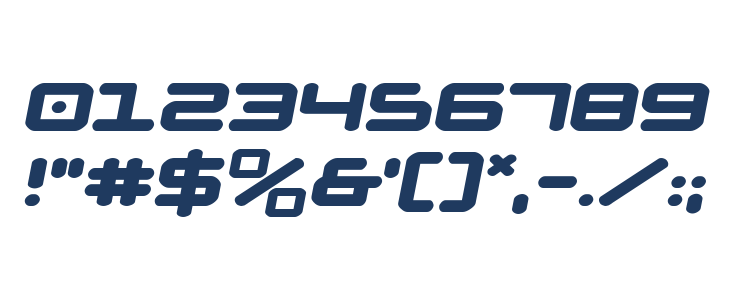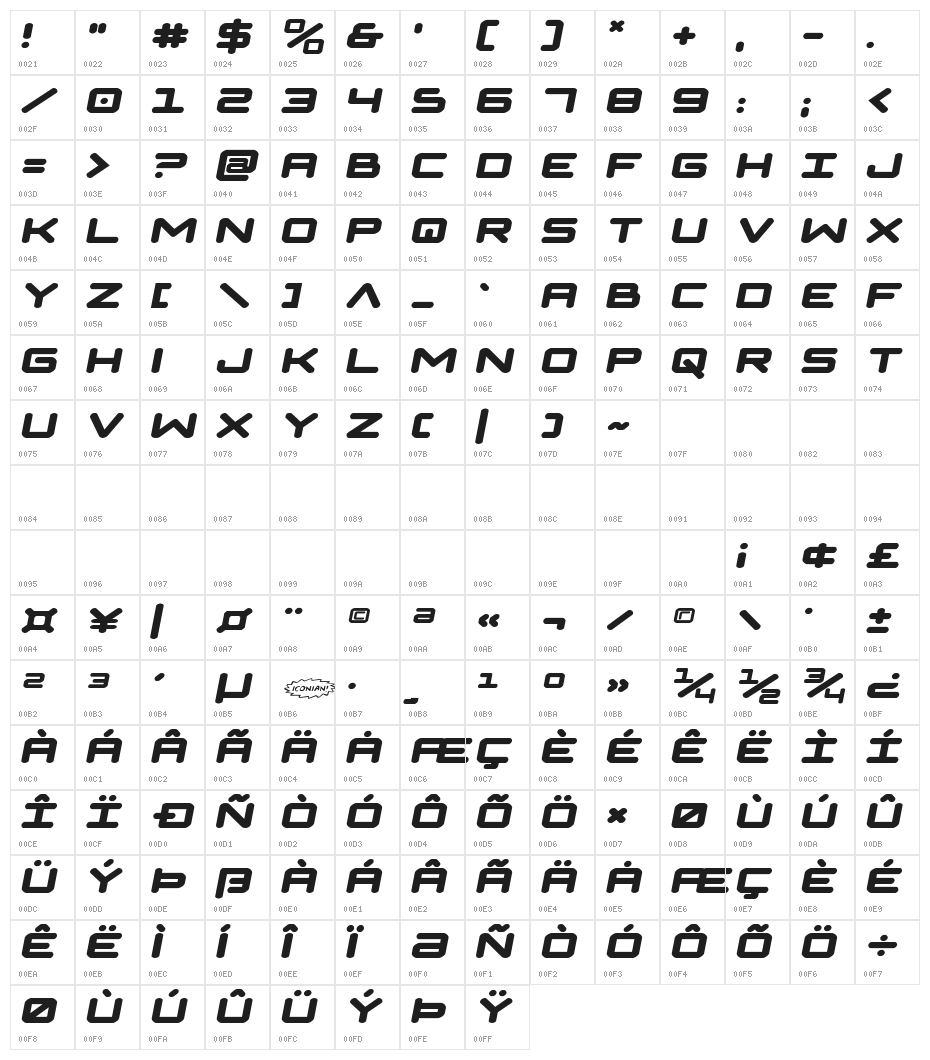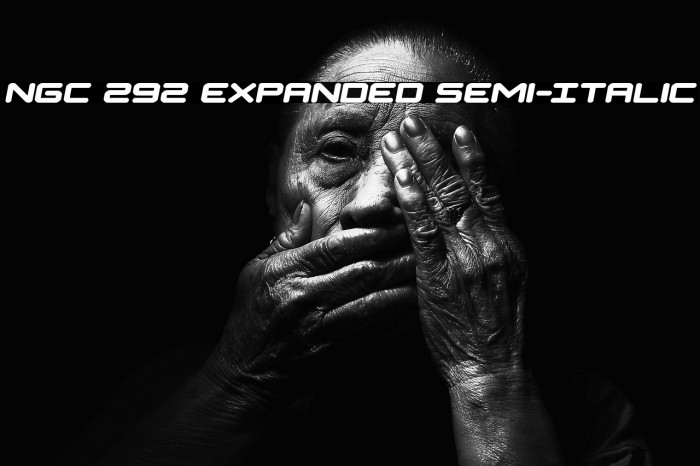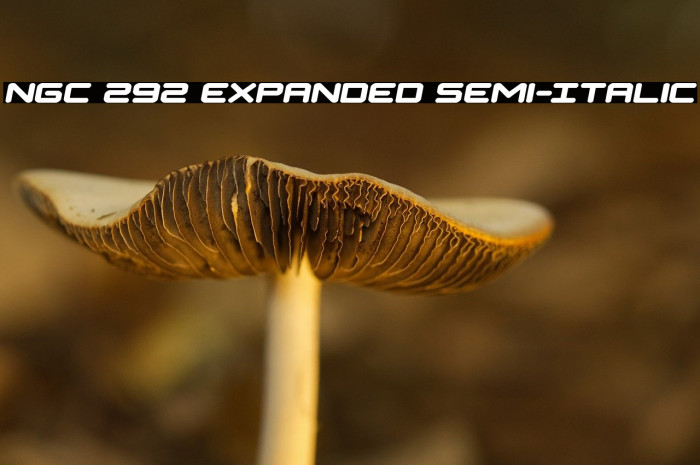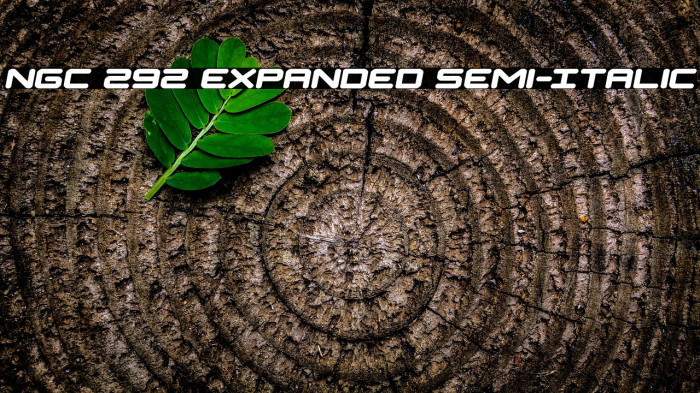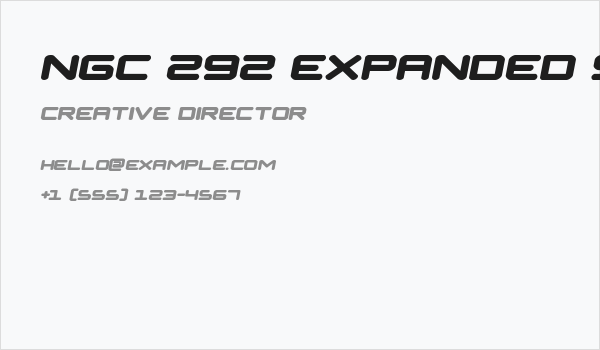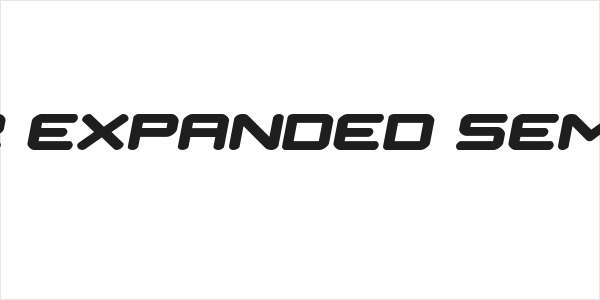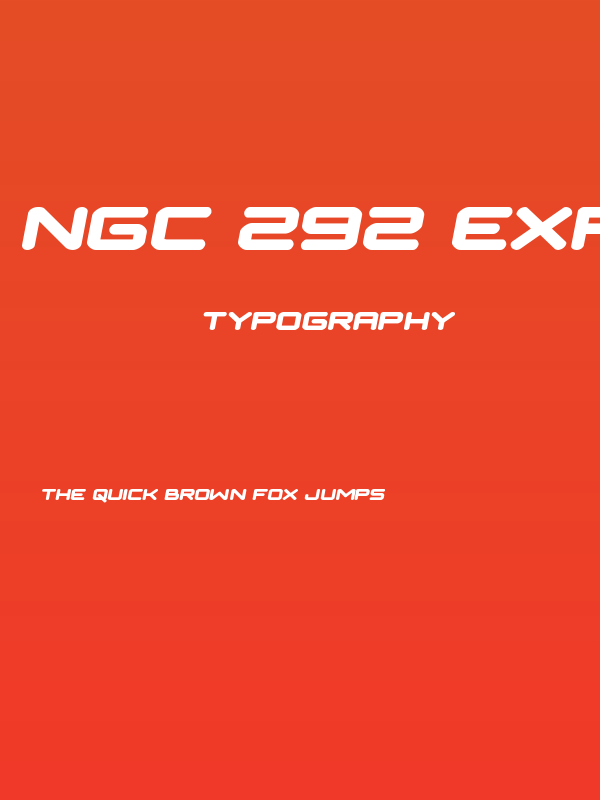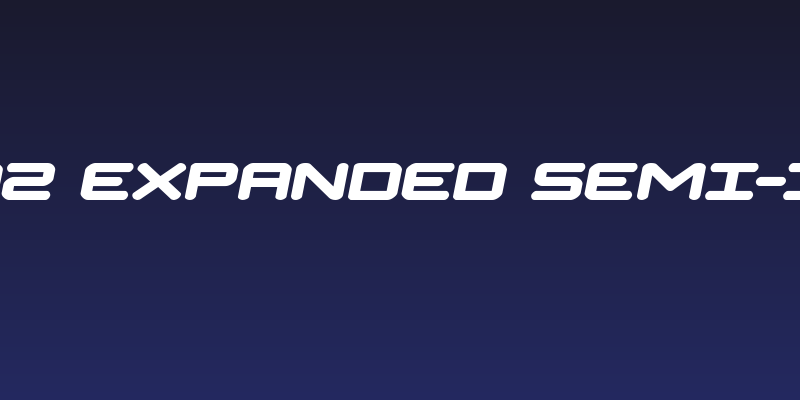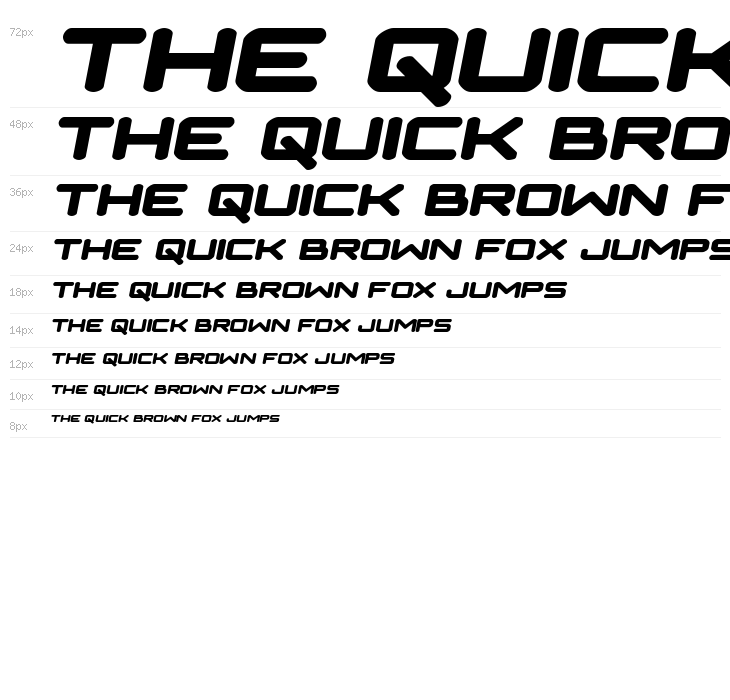
NGC 292 Expanded Semi-Italic Font
NGC 292 Expanded Semi-Italic Description
This font features a modern, expanded style with semi-italic characteristics, giving it a dynamic and forward-leaning appearance. The characters are bold and rounded, with a consistent stroke width that provides a uniform look across all letters and numbers. The design is sleek and futuristic, making it suitable for projects that require a contemporary and tech-savvy feel. The spacing between characters is normal, ensuring readability while maintaining a cohesive visual flow. The font includes a full set of uppercase letters, numbers, and a variety of special characters, making it versatile for different design needs.
| Use Case | Logos, Headlines, Digital Interfaces |
| Proposed Projects | Ideal for technology branding, sports team logos, futuristic posters, and digital interfaces. |